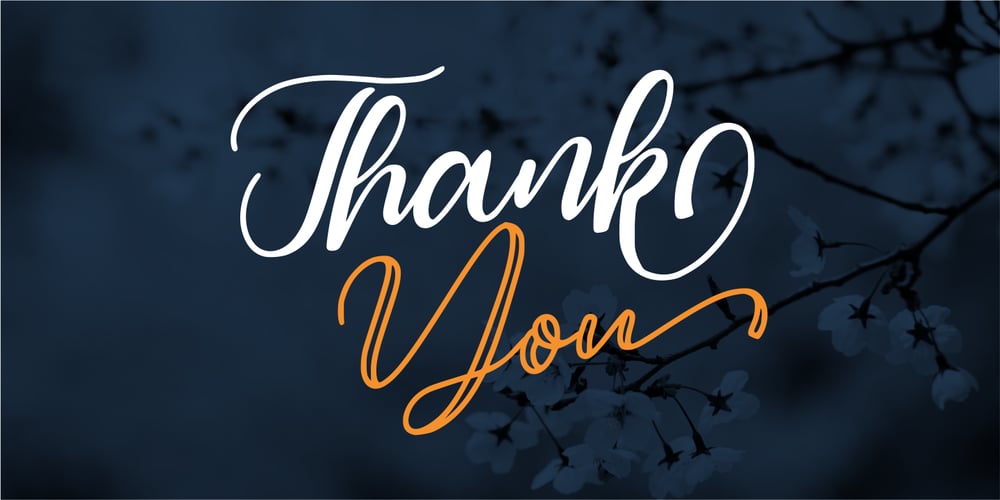
Magelove One Font Family was designed by Risman Ginarwan and published by Garisman Studio. Magelove One contains 1 styles and family package options. Magelove a handlettering font is a natural & beautyful handwritten font to get natural and natural writing. I’ts Perfect for logo, invitation, stationery, wedding designs, social media posts, advertisements, product packaging, product designs, label, photography, watermark, special events or anything INCLUDED FEATURE: – Stylistic Sets (SS01-SS08) & Ligature – PUA Encoded open – Support for MAC or PC – Simple installation for Adobe Illustrator, Corel Draw, Photoshop, or Procreate (New Updated) Thanks and Regards Garisman Studio